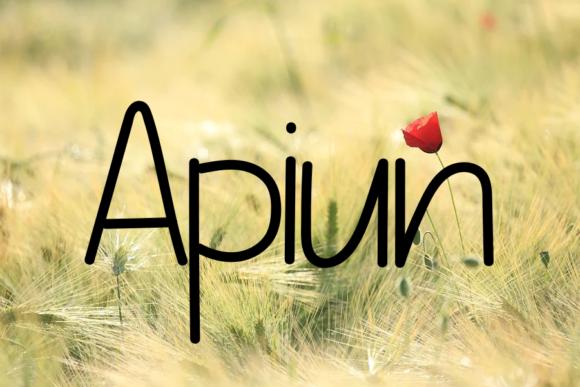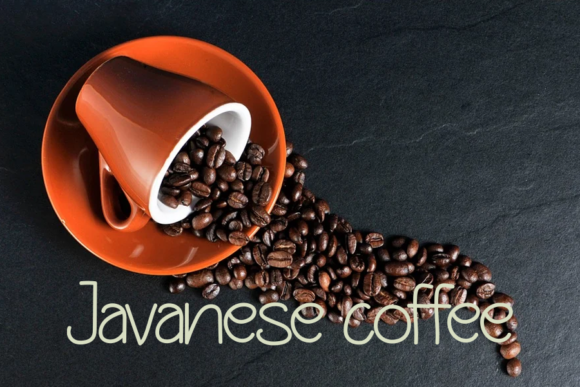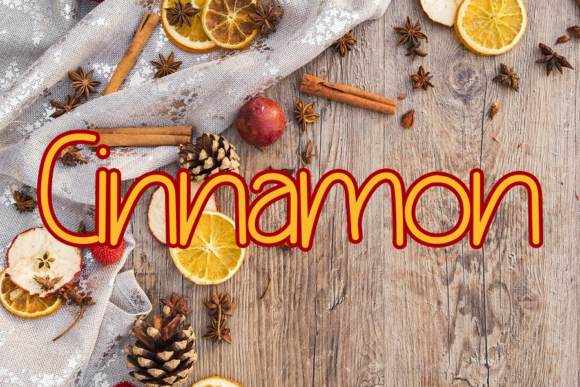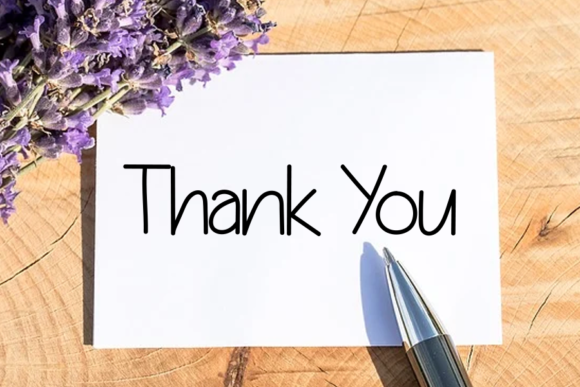
Introducing Embroider Font: The Sweet and Friendly Handwritten Font for Your Creative Projects
Are you a designer or crafter looking for a unique and versatile font to elevate your creative projects? Look no further than Embroider Font, a sweet and friendly handwritten font that’s perfect for a wide range of designs. With its natural and distinctive style, Embroider Font is sure to capture the attention of your audience and leave a lasting impression.
The Characteristics of Embroider Font
Embroider Font is a handwritten font that’s designed to mimic the look and feel of embroidered text. Its natural and unique style makes it incredibly fitting to a large pool of designs, from rustic and vintage-inspired projects to modern and playful ones. The font features:
- Handwritten style: Embroider Font has a warm and personal touch, with a subtle irregularity that gives it a human feel.
- Natural flow: The font’s letters and words flow smoothly into each other, creating a sense of movement and fluidity.
- Unique character: Embroider Font has a distinctive style that’s both sweet and friendly, making it perfect for designs that require a personal touch.
The Versatility of Embroider Font
One of the best things about Embroider Font is its versatility. Its natural and unique style makes it suitable for a wide range of designs, including:
- Wedding and event designs: Embroider Font is perfect for wedding invitations, save-the-date cards, and other event-related designs.
- Branding and packaging: The font’s unique style makes it ideal for branding and packaging designs that require a personal touch.
- Stationery and paper crafts: Embroider Font is a great choice for stationery and paper crafts, such as greeting cards, journals, and planners.
- Digital designs: The font can also be used for digital designs, such as social media graphics, blog posts, and website headers.
- Use it with a simple background: Embroider Font’s natural style can get lost if the background is too busy. Use it with a simple background to make it stand out.
- Experiment with colors: The font looks great in a variety of colors, from bright and bold to soft and pastel.
- Mix it with other fonts: Embroider Font can be paired with other fonts to create a unique and interesting contrast.
Embroider Font is a sweet and friendly handwritten font that’s perfect for designers and crafters looking for a unique and versatile font for their creative projects. Its natural and distinctive style makes it incredibly fitting to a large pool of designs, and its versatility ensures that it can be used for a wide range of applications. Whether you’re designing a wedding invitation, a brand logo, or a digital graphic, Embroider Font is sure to add a personal touch that will make your design stand out.